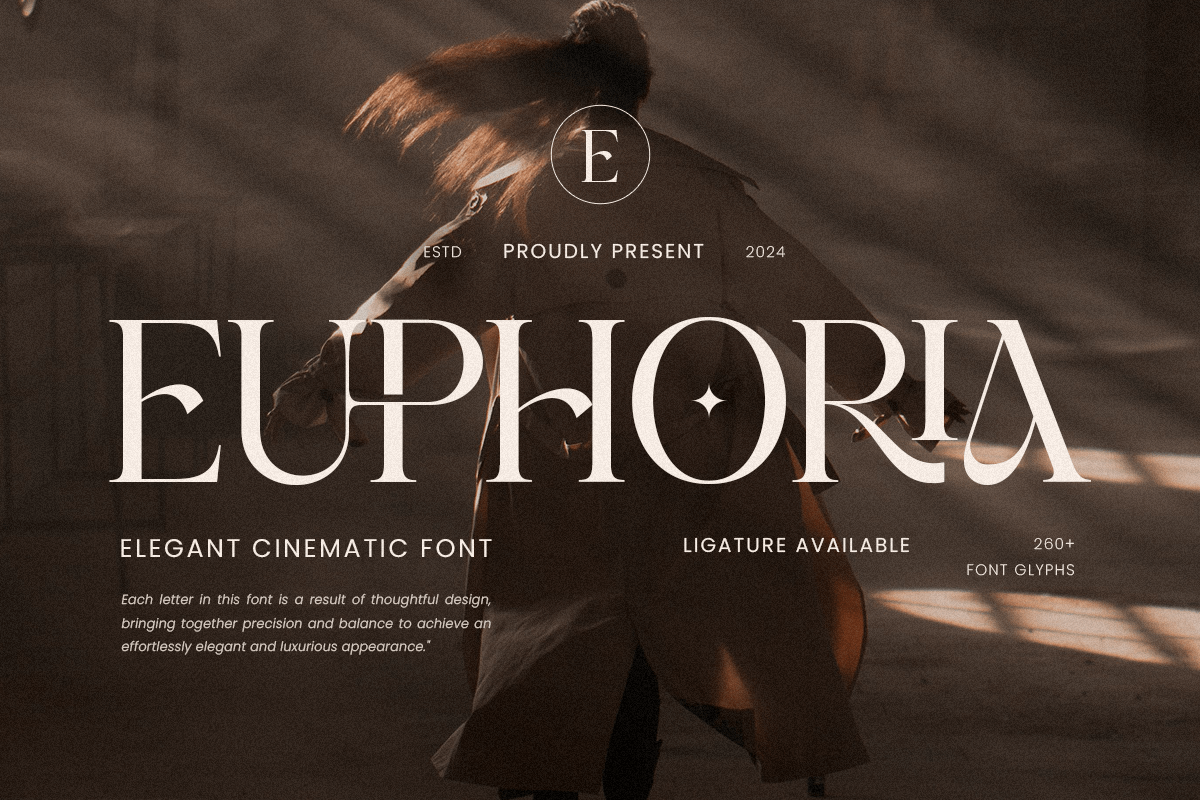
Euphoria
-Cinematic FontEuphoria - Cinematic Font
Euphoria is a cinematic font crafted to evoke grandeur and drama. Its bold yet elegant style makes it perfect for capturing the attention of audiences and creating unforgettable visual experiences.
Perfect for Visual Storytelling
From movie titles and trailers to posters and branding, Euphoria is tailored for projects that demand a cinematic flair. It transforms ordinary text into compelling and artistic compositions.
Bold, Stylish, and Versatile
Euphoria blends bold typography with sleek design, making it adaptable for a wide range of applications. It’s the ultimate choice for designers looking to make a statement in their creative works.
Euphoria Cinematic Font Features:
Alternates & Ligature Characters Ready